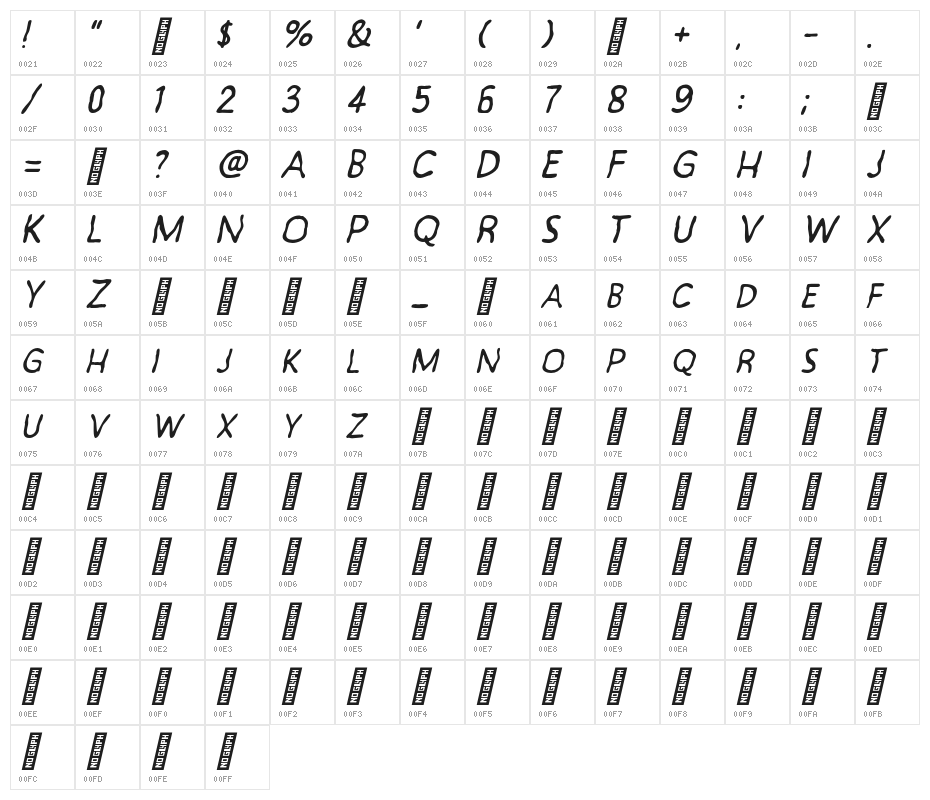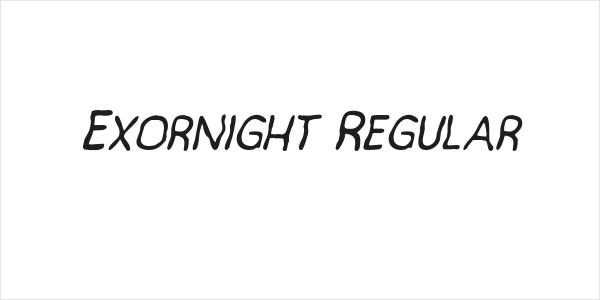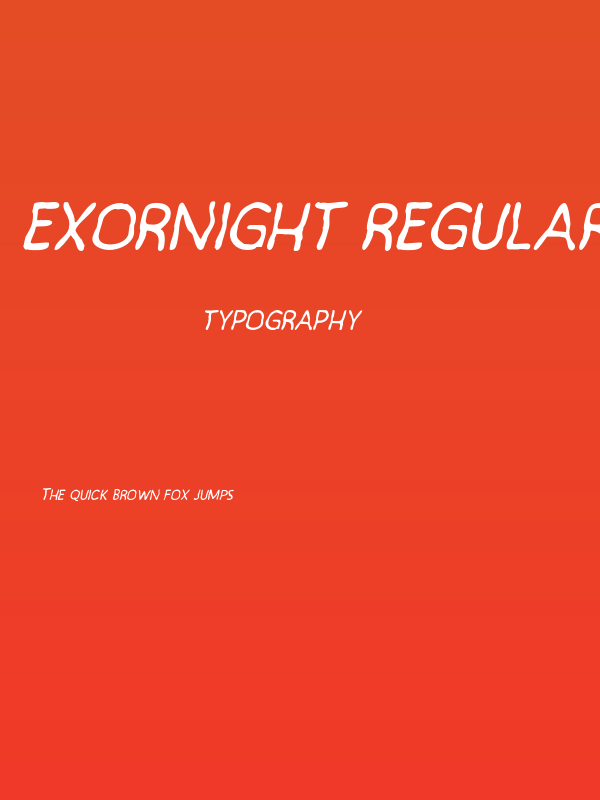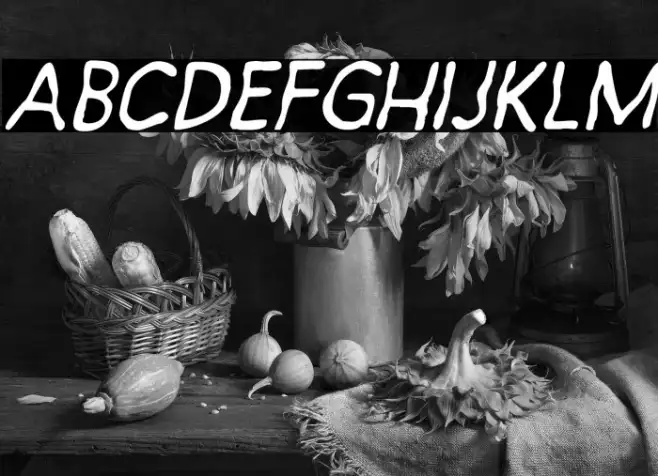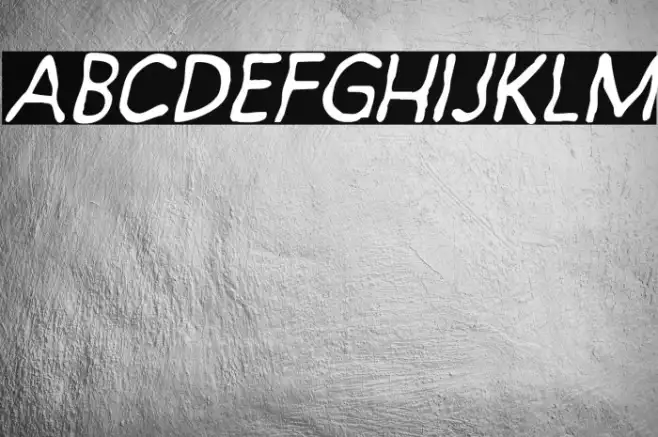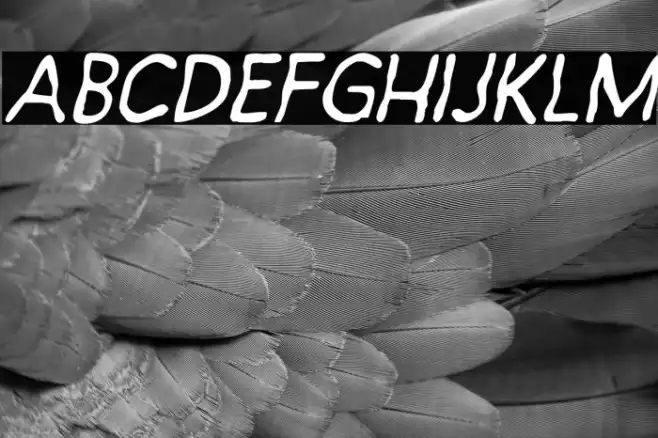
Exornight Regular Font
Exornight Regular Description
This font features a dynamic and energetic style with a handwritten appearance. The characters are slightly slanted, giving a sense of motion and fluidity. The strokes are uneven, adding a casual and informal touch. The uppercase and lowercase letters maintain a consistent style, with rounded edges and a playful feel. The numbers are bold and easily readable, while the special characters complement the overall aesthetic. This font is ideal for projects that require a personal and approachable look.
| Proposed Projects | Great for greeting cards, invitations, posters, and branding that seeks a personal touch. |